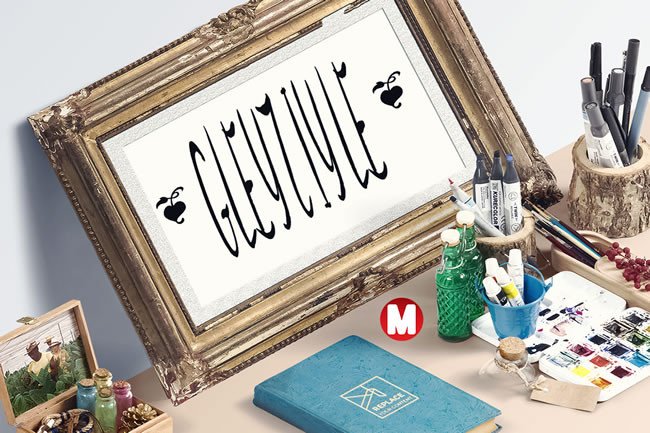
Gleyziyle Font
Get ready for a font journey like no other! Presenting Gleyziyle, the display font family that captures the essence of modernity and class. With its impeccable design, Gleyziyle is the perfect choice for your creative projects, adding a touch of elegance to any invitation, greeting card, branding material, or business card.
Visualize your words dancing on the page with Gleyziyle, creating an impact that will leave your audience spellbound. Every letterform in this font carries a story, expressing emotions and evoking a sense of charm. You'll find yourself drawn to its delicate strokes and refined curves, adding a dash of sophistication to your designs.
Gleyziyle is more than just a font; it's a versatile tool that adapts to your creative vision. Whether you're designing posters, quotes, or any other visual masterpiece, Gleyziyle adapts effortlessly to match your style. Its versatility knows no bounds, empowering you to craft designs that captivate and inspire.
With Gleyziyle, you're not just buying a font; you're embracing a gateway to creativity. Let your imagination soar as you explore the endless possibilities, transforming your designs into works of art. Unleash your individuality and leave a lasting impression with every word you put on the page.